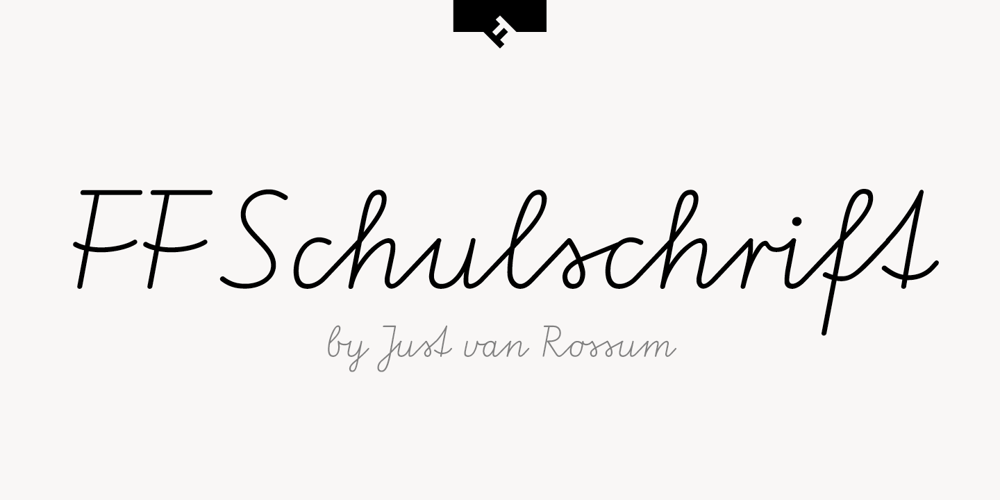
FF Schulschrift Font Family was designed by Just van Rossum and published by FontFont. FF Schulschrift contains 20 styles and family package options. Dutch type designer Just van Rossum created this script FontFont in 1991. The family has 20 weights and is ideally suited for advertising and packaging, book text, film and tv, editorial and publishing as well as logo, branding and creative industries. FF Schulschrift provides advanced typographical support with features such as alternate characters. It comes with tabular lining and proportional lining figures.